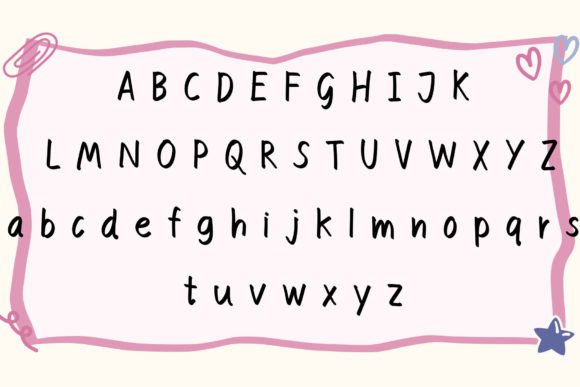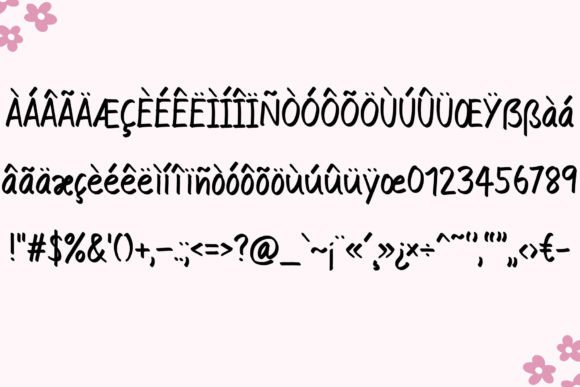
Introduction to Eulalia Font
Do you ever find yourself stuck in a creative rut, staring blankly at your computer screen, desperate for the perfect font to elevate your project? That was me, until I discovered the charming Eulalia Font. This delightful, handwritten sans-serif has been a game-changer for designers like me, adding a touch of whimsy and personality to our work.
With its high-quality design and transparent background, the Eulalia Font is a valuable resource for any creative project. Whether you’re crafting invitations, designing logos, or working on a fun project, this font is sure to bring a smile to your face. And the best part? It’s available for free download, making it an accessible design resource for designers of all levels.
- Unique characteristics: The Eulalia Font features a unique, elegant design that is perfect for adding a touch of sophistication to creative projects.
Honest Review: Eulalia Font
As a designer, I’m always on the lookout for high-quality design resources to elevate my creative projects. The Eulalia Font caught my attention, and I decided to give it a try. Here’s my honest review.
- High-quality design: The Eulalia Font boasts a sleek, elegant design that’s perfect for creative projects.
- Limited language support: Unfortunately, the Eulalia Font only supports a limited number of languages, which may be a drawback for designers working on multilingual projects.
- No bold or italic styles: The font doesn’t come with bold or italic styles, which may limit its versatility in certain design contexts.
Overall, I’m impressed with the Eulalia Font’s design quality and transparent background. While it has some limitations, it’s a great resource for designers working on creative projects that require a high-quality, elegant font.
Eulalia Font
The Eulalia Font is commonly used in a variety of design projects, including logos, branding materials, and marketing materials. It is also commonly used in digital designs, such as website headers and social media graphics.
Yes, the Eulalia Font is designed to be high-quality and suitable for high-resolution printing. It includes detailed glyphs and accurate kerning, making it an excellent choice for creative projects that require precise typography.